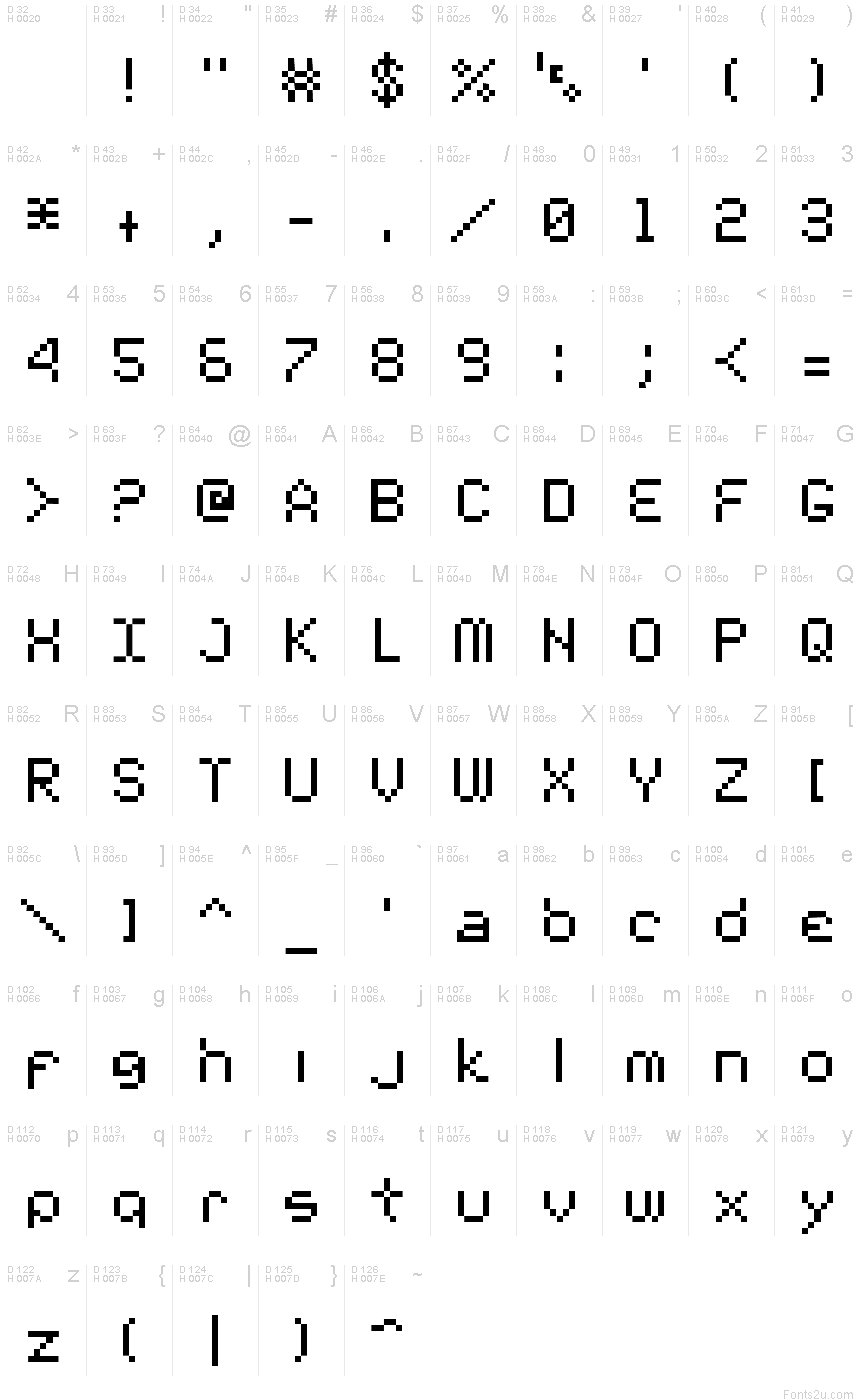
00 Starmap Truetype
00 Starmap Truetype is a captivating pixel-art font that transports the viewer into a cosmic realm. Crafted by Iconian Fonts, this bitmap typeface boasts a distinctly pixelated aesthetic, evoking a retro-futuristic sensibility. The angular, geometric letterforms radiate a sense of digital energy, making it an excellent choice for projects with a sci-fi, gaming, or cyberpunk-inspired aesthetic. Its versatility extends beyond these realms, as the font's striking visual impact can lend itself to branding, typography, and even editorial design.
The font's unique style and impactful presence make it a compelling choice for a wide range of applications. Its ability to convey a futuristic, technological atmosphere can elevate digital interfaces, gaming interfaces, and creative projects with a cosmic or retro-tech theme. Additionally, the font's bold and attention-grabbing nature makes it a suitable option for headlines, posters, and other display-oriented design pieces.